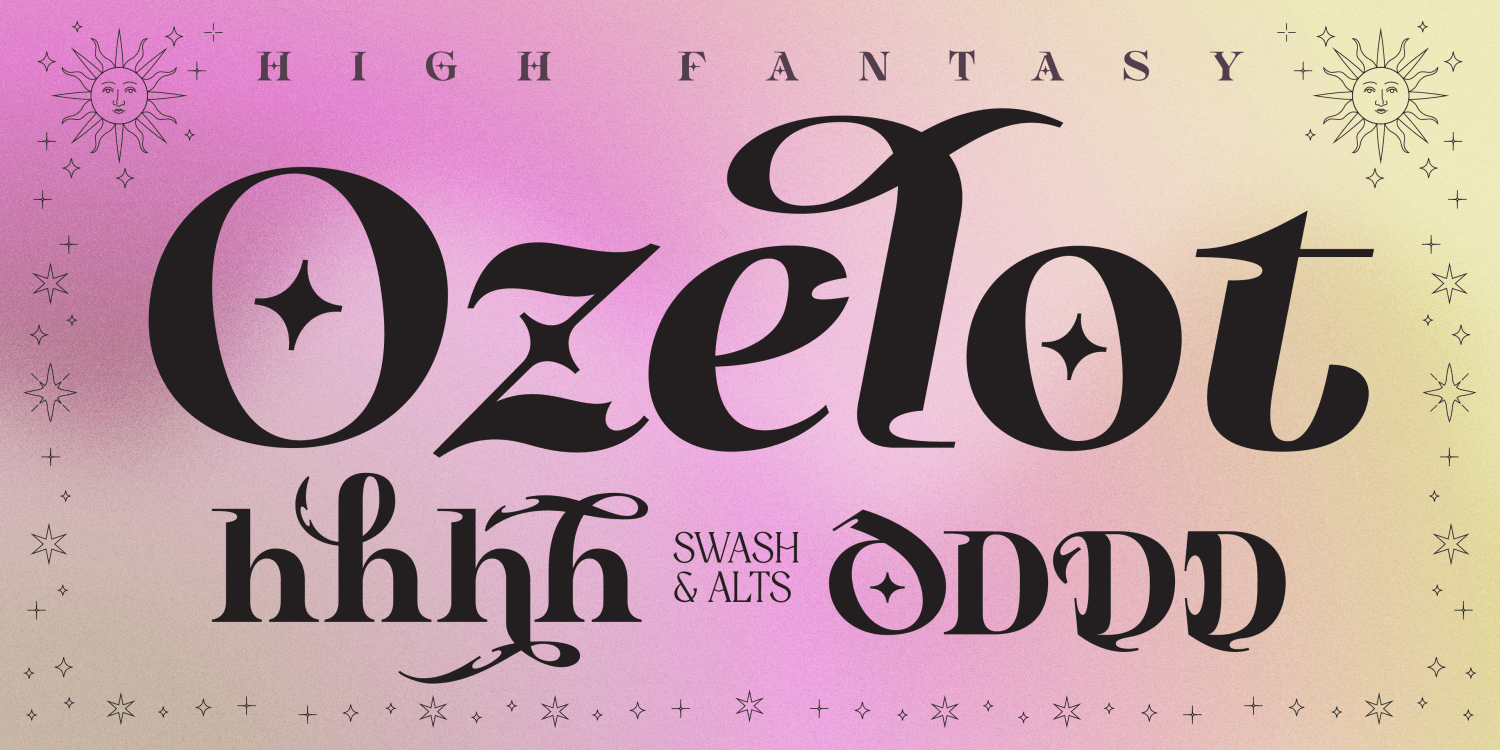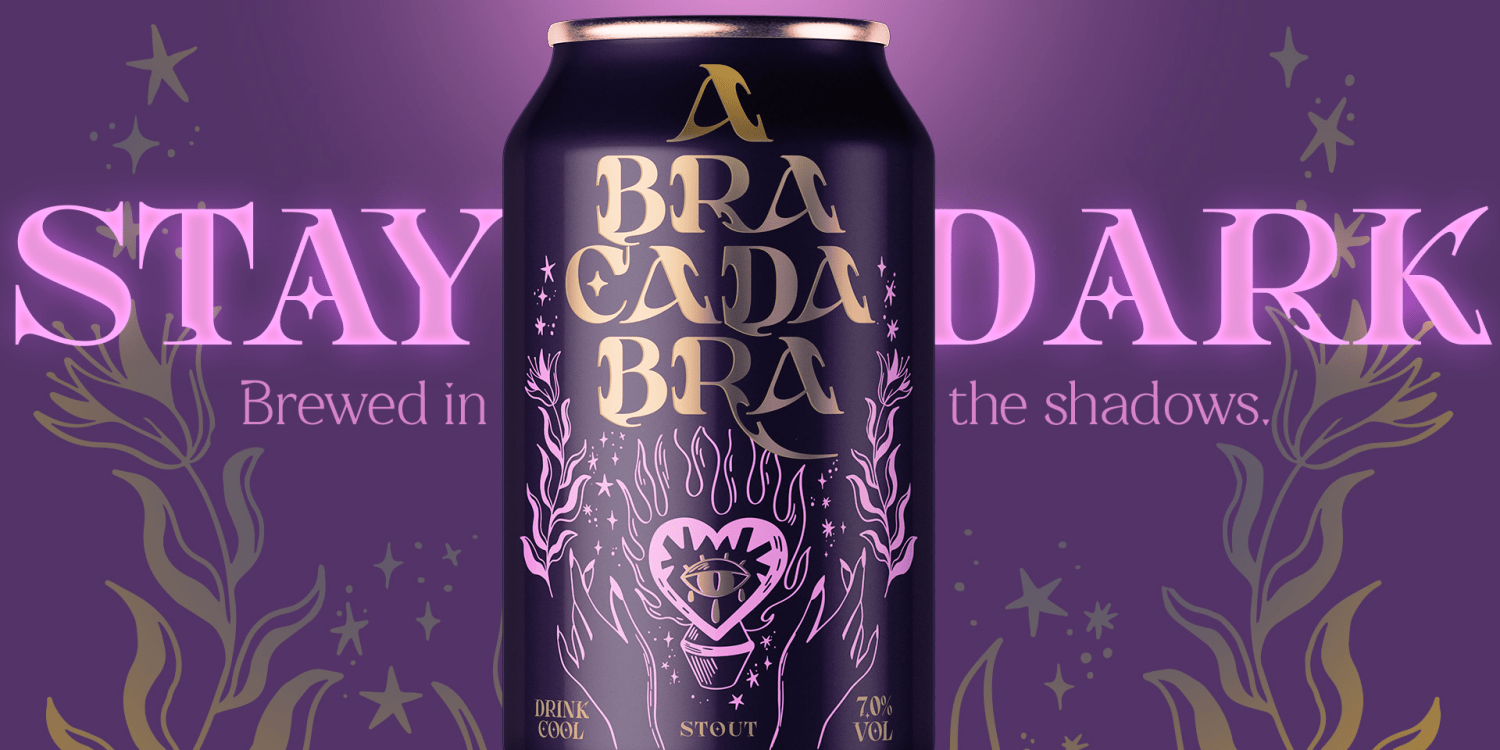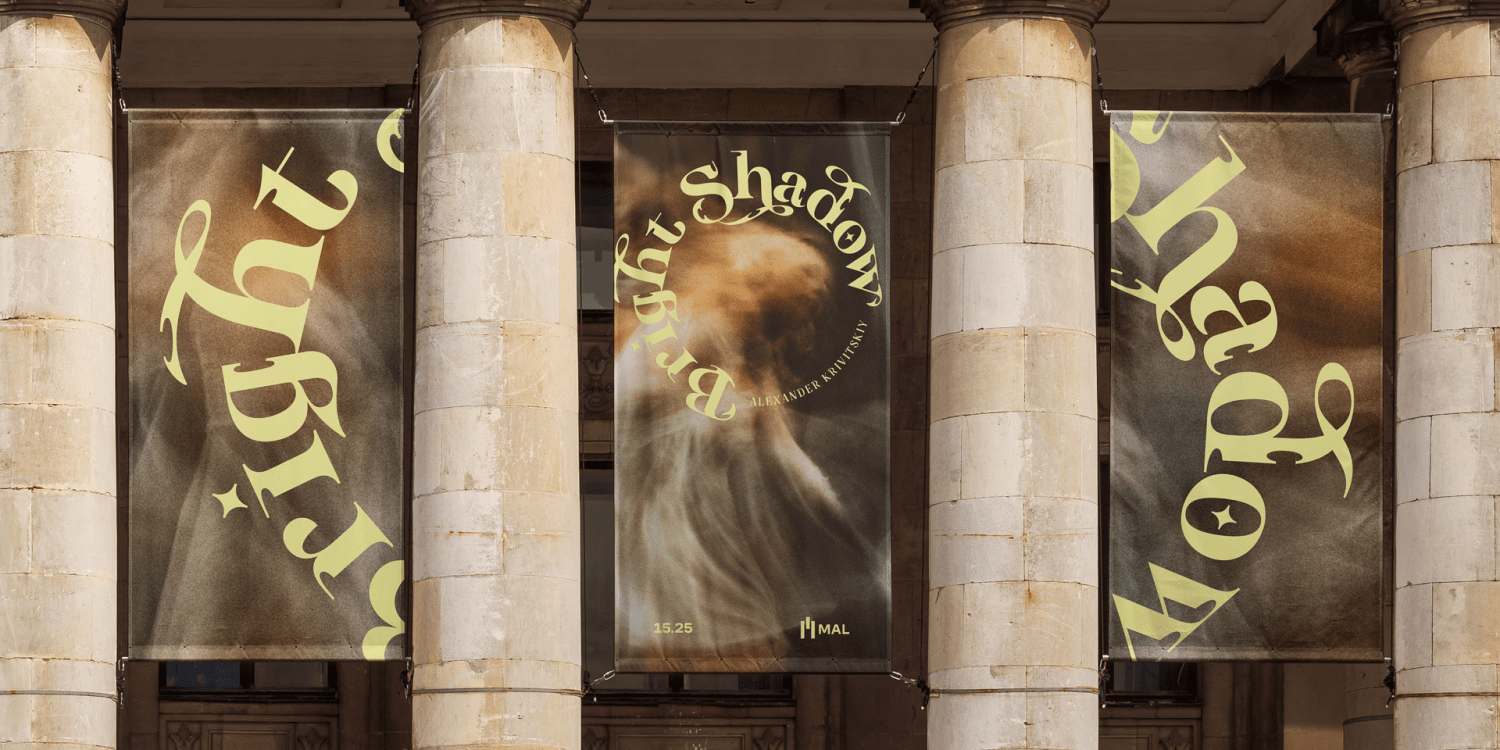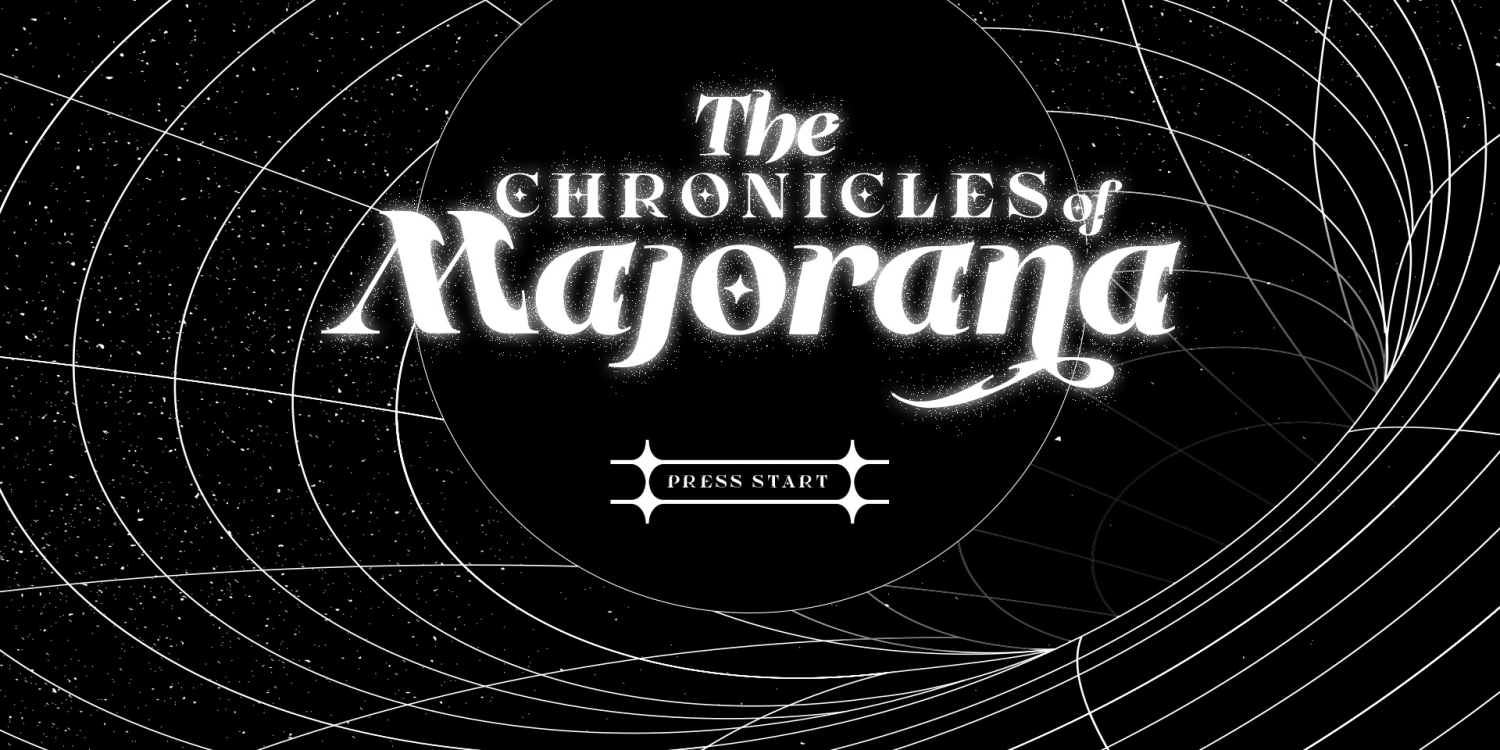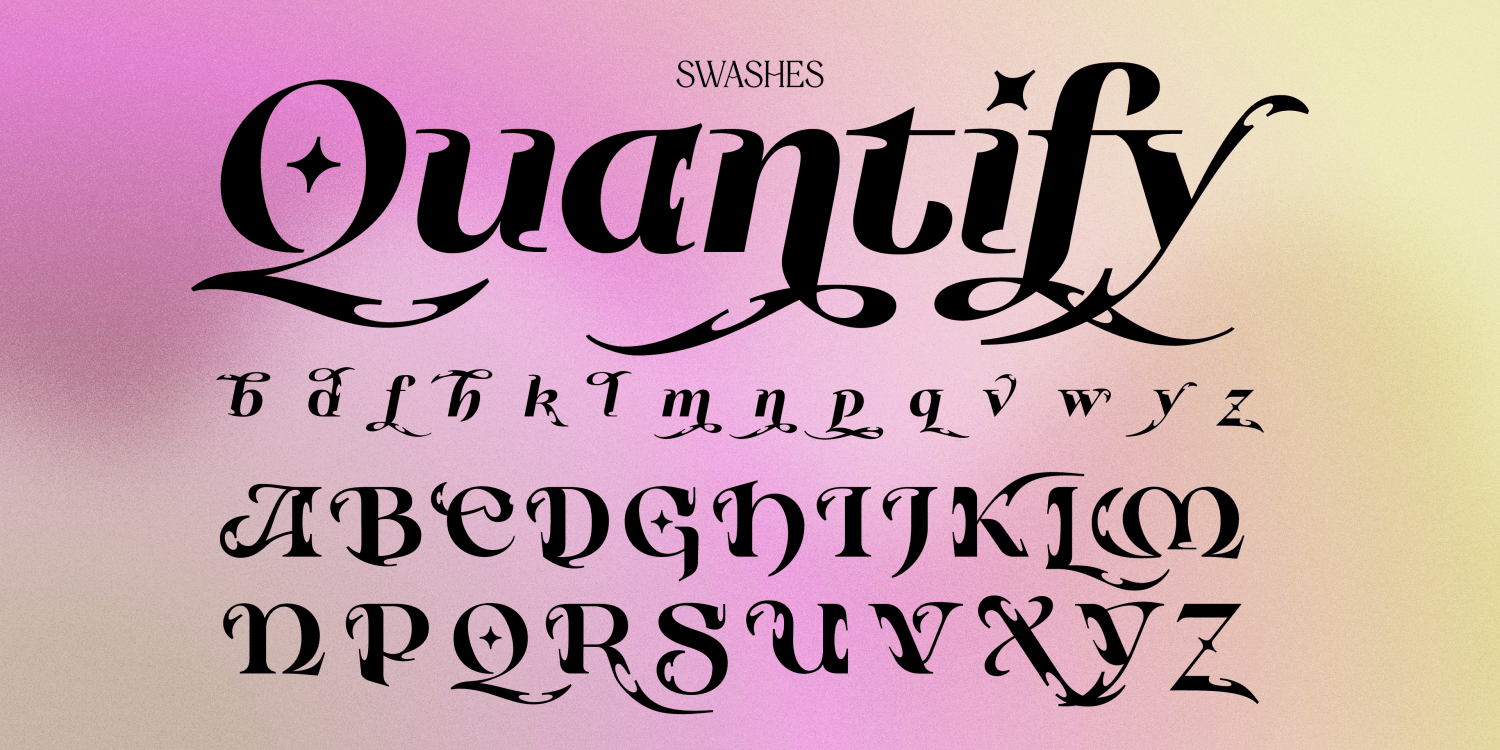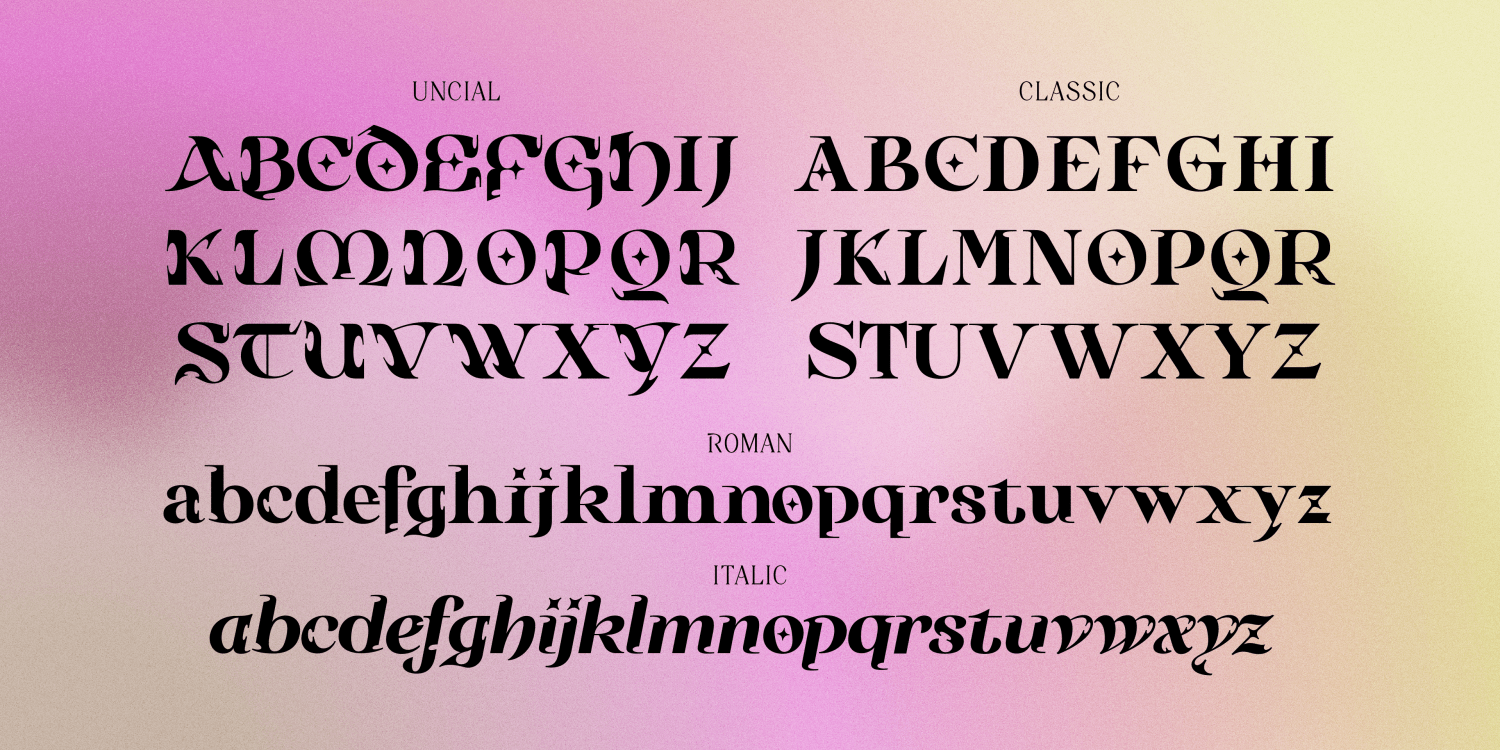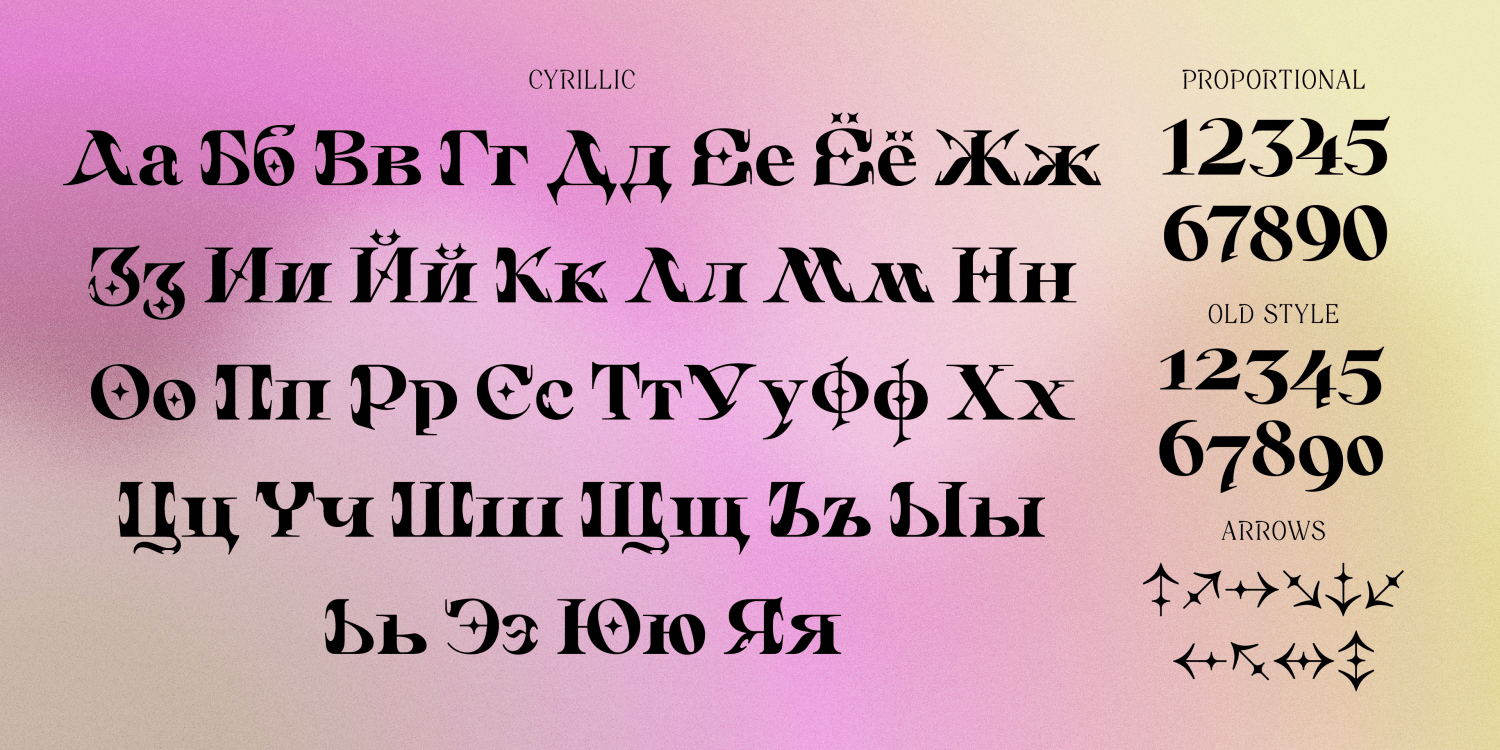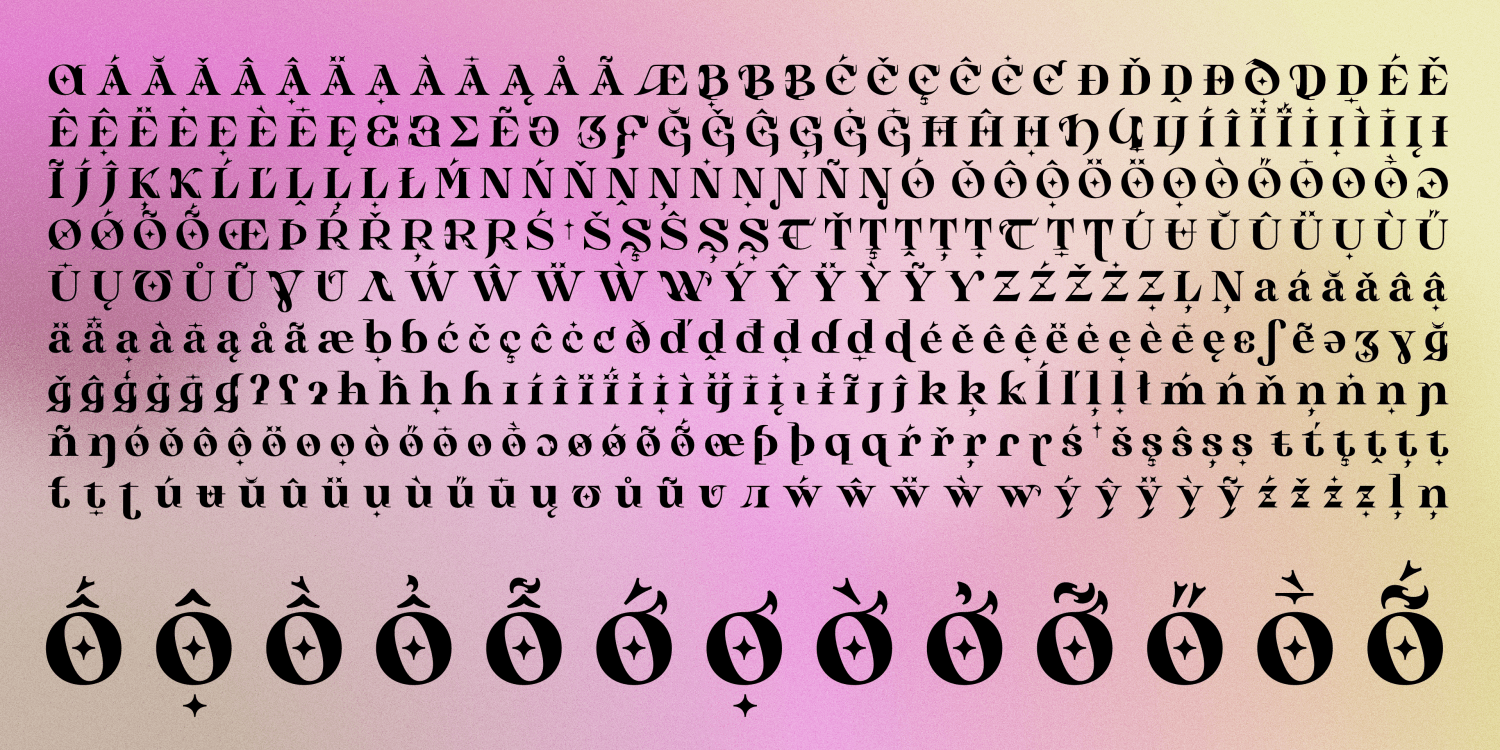
Ozelot Heavy
Ozelot is a high-fantasy typeface that merges gothic influences with otherworldly elegance. It offers two distinctive uppercase styles: Uncial, with its medieval and mystical forms, and Classic, a sharp, high-contrast variation. Its lowercase letters maintain a refined balance, with a roman style that is bold yet expressive and an italic that flows with dramatic swashes.
Inspired by calligraphy and fantastic storytelling, Ozelot’s terminals feature negative ellipses and star-like dots, evoking celestial and arcane aesthetics. Its high contrast and sharp serifs make it excel in large sizes, perfect for space operas, tarot posters, fantasy book covers, and magic-infused branding.
Activate Swashes in your OpenType panel to unveil dynamic flourishes and pair them with the classic letterforms to create a striking balance. With 1,310 glyphs, Ozelot supports over 500 languages, including Vietnamese and Cyrillic-based scripts. It also features old-style numerals and a set of decorative arrows, perfect for enhancing your designs with a touch of mystery and grandeur.